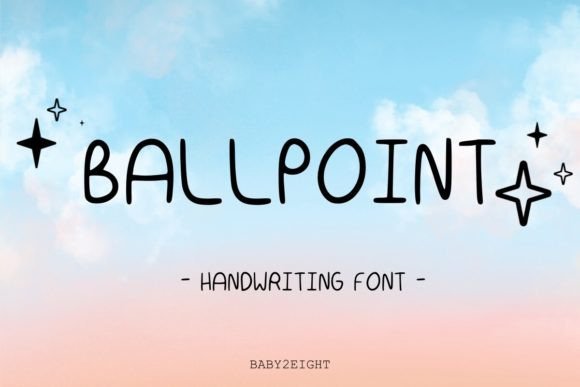
The Joy of Handwritten Notes
Who hasn’t scribbled a quick note to a friend or family member, using the first pen that came to hand? Those spontaneous scribbles often hold a special charm, conveying a sense of warmth and personality that typed words can’t quite match.
Introducing Ballpoint, a font that captures the essence of those carefree handwritten notes. This effervescent font is designed to add a touch of whimsy and personality to your designs, making every word seem personal and approachable. Whether you’re creating greeting cards, gift labels, or social media posts, Ballpoint Font is the perfect tool for evoking a sense of delight and nostalgia.
For designers, Ballpoint Font offers a unique opportunity to add an extra layer of emotion to their work, making it stand out in a crowded digital landscape. Its breezy and casual style is sure to charm, and its versatility makes it a valuable addition to any design toolkit.
Key Features of Ballpoint Font
• Unique Characteristics: Ballpoint Font features a unique blend of modern and vintage elements, with a distinctive ballpoint pen-inspired aesthetic
Ballpoint Font Review
As a designer, I was excited to dive into the Ballpoint Font, and overall, I have mixed feelings about it. On one hand, it’s clear that the creator aimed to create a font that’s both modern and stylish.
• Unique aesthetic: Ballpoint Font has a distinct look that’s sure to grab attention. The rounded edges and subtle texture give it a modern feel that’s perfect for contemporary designs.
• Good for digital use: The font is well-suited for digital applications, such as social media posts, website headers, and mobile app interfaces.
• Easy to read: Despite its bold appearance, Ballpoint Font is surprisingly easy to read, even at smaller font sizes.
• Limited versatility: While Ballpoint Font works well for digital use, it may not be the best choice for print materials, such as business cards or brochures, where a more traditional font may be more effective.
• May not be suitable for large blocks of text: Due to its bold appearance, Ballpoint Font can be overwhelming when used for extended periods of text. It’s best used for headings or short paragraphs.
• Lack of subtlety: While the font’s unique aesthetic is a strength, it may be too attention-grabbing for some designs, making it difficult to balance with other elements.
Overall, I think Ballpoint Font is a great addition to any designer’s toolkit, but it’s essential to use it judiciously. When paired with the right design elements, it can add a touch of modernity and style to any project.
Tips for Getting the Most Out of Ballpoint Font
Use Ballpoint Font for retro-themed designs, such as posters, flyers, and business cards.
Pair Ballpoint Font with bold colors and geometric shapes for a modern look.
Ballpoint Font is ideal for:
1. Retro-themed designs.
2. Creative business cards.
3. Posters and flyers.
4. Social media graphics.
Alternatives to Ballpoint Font for Designers
Great Vibes Font is a modern, cursive font that works well for titles, headings, and short paragraphs. It’s ideal for designs that require a touch of elegance and sophistication. Great Vibes Font is a more refined and polished alternative to Ballpoint Font, with a wider range of uses.
Comparison to Ballpoint Font: Great Vibes Font has a more formal tone and a wider range of styles, making it a better choice for formal or professional designs.
Pacifico Font is a beautiful, handwritten font that’s perfect for creating a relaxed and casual atmosphere. It’s ideal for designs that require a personal touch and a sense of warmth. Pacifico Font is a more casual alternative to Ballpoint Font, with a focus on creating a friendly and approachable vibe.